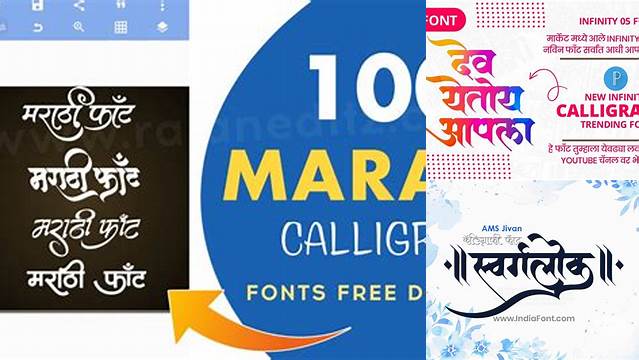
Hey guys! Are you looking to add a touch of Marathi flair to your designs? Well, you've come to the right place! In this comprehensive guide, we'll dive deep into the world of Marathi calligraphy font generators, exploring how you can download them for free and use them to create stunning visuals. We'll cover everything from understanding the nuances of Marathi calligraphy to finding the best font generators and making the most of their features. So, buckle up and let's embark on this exciting journey of artistic expression!
Understanding the Beauty of Marathi Calligraphy
Before we jump into the technical aspects, let's take a moment to appreciate the artistry of Marathi calligraphy. It's more than just writing; it's an intricate dance of curves, strokes, and flourishes that embodies the rich cultural heritage of Maharashtra. Each character is a work of art, meticulously crafted to convey not just the meaning of the word, but also its emotional essence. Marathi calligraphy, or Devanagari calligraphy, as it's sometimes known, has a long and storied history, with roots tracing back to ancient scripts. Over the centuries, it has evolved into a diverse range of styles, each with its own unique character and charm. From the elegant grace of the Modi script to the bold strokes of the Balbodh style, Marathi calligraphy offers a plethora of options for artistic expression. The beauty of Marathi calligraphy lies in its ability to seamlessly blend tradition and innovation. While rooted in ancient techniques, it continues to evolve and adapt to contemporary design trends. This dynamic interplay between the past and the present makes Marathi calligraphy a timeless art form that resonates with people of all ages and backgrounds. Whether you're designing a wedding invitation, creating a poster, or simply adding a personal touch to your social media posts, Marathi calligraphy can elevate your work to a whole new level. Its intricate forms and elegant lines add a touch of sophistication and cultural richness that is hard to replicate with conventional fonts. So, if you're looking to make a statement and leave a lasting impression, Marathi calligraphy is definitely the way to go.
Why Use a Marathi Calligraphy Font Generator?
Now, you might be wondering, why use a Marathi calligraphy font generator when you could just hire a professional calligrapher? Well, there are several compelling reasons. First and foremost, a font generator offers a cost-effective solution, especially if you have a limited budget. Hiring a calligrapher can be expensive, while most Marathi calligraphy font generators offer free options or very affordable premium plans. Secondly, font generators provide unparalleled convenience and speed. With a few clicks, you can generate a wide variety of calligraphic styles, experiment with different fonts, and customize the text to your exact specifications. This is a huge time-saver compared to the traditional method of hand-lettering, which can take hours or even days to complete a single piece. Furthermore, Marathi calligraphy font generators empower you to explore your own creativity. They provide a user-friendly platform for experimenting with different styles, sizes, and colors, allowing you to create unique designs that truly reflect your personal vision. You don't need to be a professional artist to use a font generator; even beginners can achieve impressive results with a little practice. Another advantage of using a font generator is the sheer variety of options available. You can choose from a vast library of pre-designed fonts, each with its own distinct personality and character. This allows you to find the perfect font for your specific project, whether you're creating a traditional invitation or a modern website design. Finally, Marathi calligraphy font generators are incredibly versatile. You can use them for a wide range of applications, from creating logos and branding materials to designing greeting cards and social media graphics. The possibilities are endless, limited only by your imagination. So, if you're looking for a cost-effective, convenient, and versatile way to incorporate Marathi calligraphy into your designs, a font generator is definitely the way to go.
Finding the Best Marathi Calligraphy Font Generators for Free Download
- MyFonts: MyFonts is a premium font marketplace, but they often have free font offerings, including some beautiful Marathi calligraphy fonts. It's worth checking their website regularly to see what's available. MyFonts is known for its high-quality fonts and excellent customer service. If you're looking for a specific Marathi calligraphy font and can't find it for free, MyFonts is a good place to start your search. Their extensive collection and helpful search filters make it easy to find the perfect font for your project. While MyFonts is primarily a paid service, their occasional free font offerings make it a valuable resource for designers on a budget.
- IndiFonts: As the name suggests, IndiFonts specializes in Indian language fonts, including a wide range of Marathi calligraphy fonts. They offer both free and paid fonts, so you'll find something to suit your needs and budget. IndiFonts is a great resource for finding unique and authentic Marathi calligraphy styles that you won't find anywhere else. Their website is easy to navigate, and they offer detailed information about each font, including its license and usage restrictions. If you're looking for a truly authentic Marathi calligraphy font, IndiFonts is definitely worth checking out.
Remember to always check the license agreement before using any font, especially for commercial projects. This will ensure that you're using the font legally and avoid any potential copyright issues. With a little bit of searching, you're sure to find the perfect Marathi calligraphy font for your project, completely free of charge!
Key Features to Look for in a Marathi Calligraphy Font Generator
Conclusion: Embrace the Art of Marathi Calligraphy
So there you have it, guys! A comprehensive guide to Marathi calligraphy font generators and how to use them to create amazing designs. We've covered everything from understanding the beauty of Marathi calligraphy to finding the best free download options, exploring key features, and mastering the art of design. I hope this guide has inspired you to embrace the beauty and versatility of Marathi calligraphy and incorporate it into your creative projects. Whether you're a seasoned designer or just starting out, Marathi calligraphy font generators offer a powerful and accessible way to express your creativity and connect with the rich cultural heritage of Maharashtra. So go ahead, experiment with different fonts, customize your text, and create stunning visuals that will captivate your audience. The world of Marathi calligraphy is waiting to be explored, and with the help of these fantastic tools, you're well-equipped to embark on this exciting artistic journey. Remember to always check the license agreements before using any font, and most importantly, have fun! Happy creating!